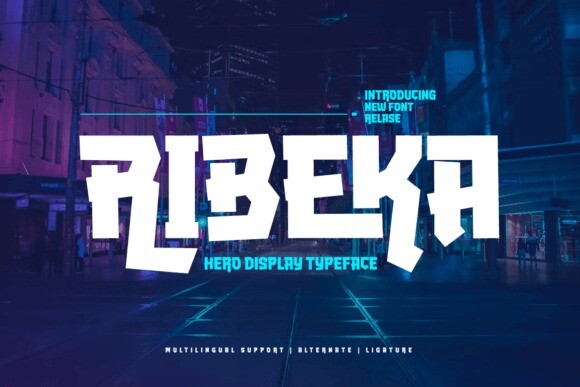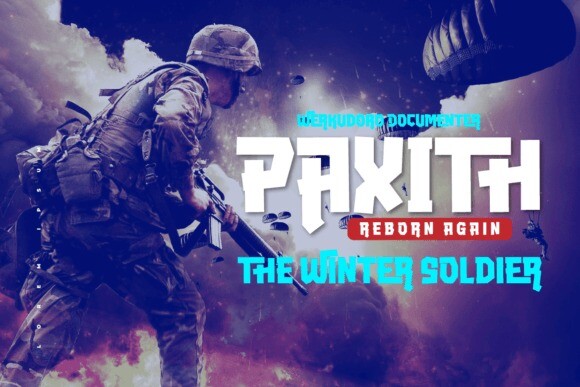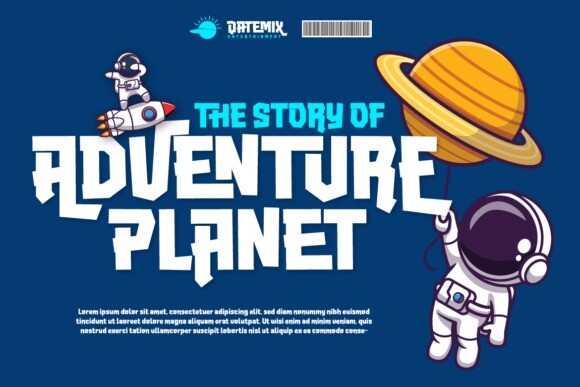
Ribeka Font
Ribeka is a bold display font with a modern vibe and an unforgettable quality. Its sharp and strong typefaces make it perfect for the superhero, war, or whatever posters you need. what are you waiting for start using this font for a super look project!